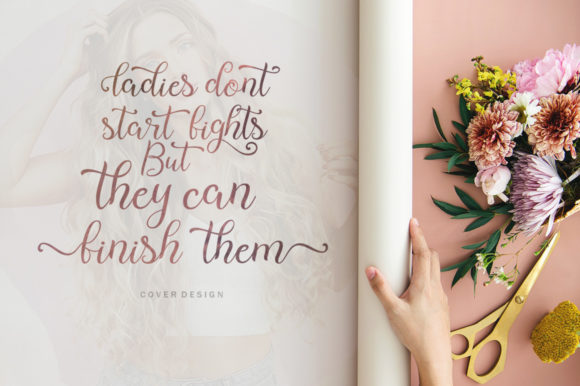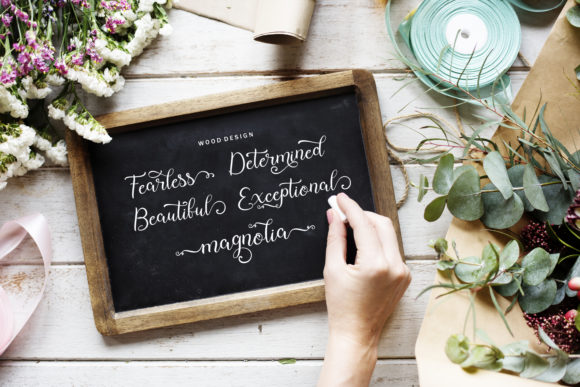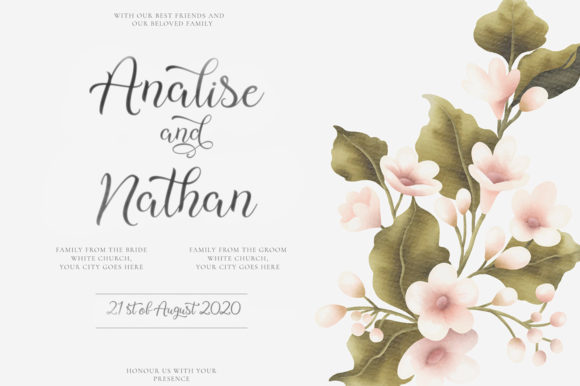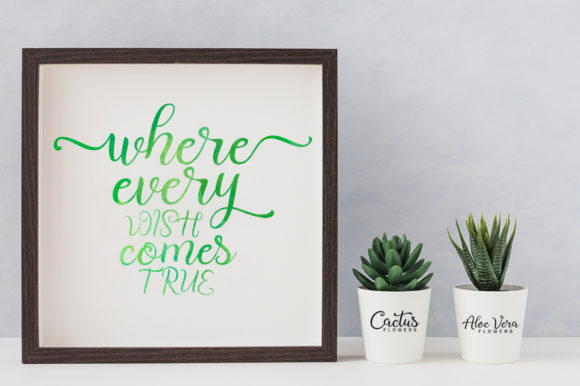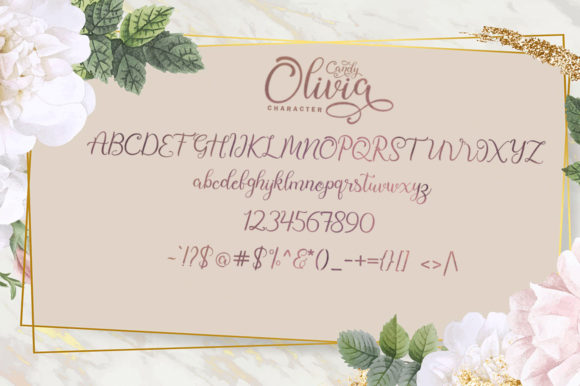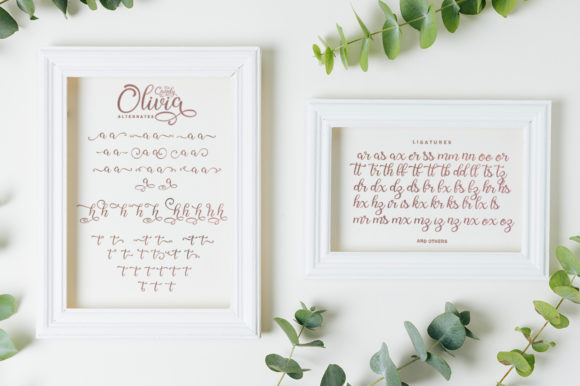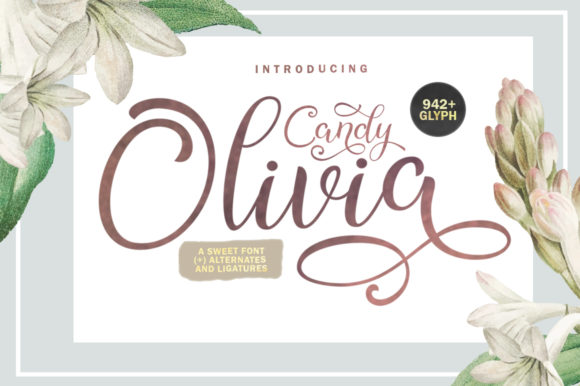
Candy Olivia Font: The Perfect Blend of Fun and Quirky for Your Designs
Are you on the hunt for a font that can add a dash of fun and personality to your designs? Look no further than the Candy Olivia Font. This casual, handwritten font is created using a brush pen, giving it a clean and quirky feel that’s perfect for a variety of projects. In this article, we’ll dive into the details of the Candy Olivia Font and explore how it can elevate your logos, branding, social media, and DIY projects.
What is Candy Olivia Font?
Candy Olivia Font is a unique, handwritten font that’s designed to bring a touch of whimsy to your designs. Created with a brush pen, this font boasts a clean and playful feel that’s sure to capture the attention of your audience. Whether you’re working on a logo, branding materials, social media graphics, or crafty DIY projects, Candy Olivia Font is the perfect fit.
Key Features of Candy Olivia Font
- Handwritten with a brush pen: The Candy Olivia Font is created using a brush pen, giving it a distinctive, hand-crafted feel.
- Clean and quirky: This font strikes the perfect balance between clean lines and quirky charm, making it versatile and engaging.
- Casual and fun: The Candy Olivia Font is designed to add a touch of fun and personality to your designs, making it perfect for projects that require a playful vibe.
- Perfect for various projects: From logos and branding to social media graphics and DIY projects, this font is suitable for a wide range of applications.
Uses for Candy Olivia Font
The Candy Olivia Font is incredibly versatile, making it suitable for a variety of projects. Here are some ideas to get you started:
- Logos and branding: Use the Candy Olivia Font to create a unique and memorable logo that reflects your brand’s personality.
- Social media graphics: Add a touch of fun and whimsy to your social media graphics, including Facebook posts, Instagram stories, and Twitter headers.
- DIY projects: The Candy Olivia Font is perfect for crafty DIY projects, such as handmade cards, gift tags, and scrapbooking.
- Stationery and paper goods: Use this font to create custom stationery, notebooks, and paper goods that are sure to stand out.
Tips for Using Candy Olivia Font
To get the most out of the Candy Olivia Font, here are some tips to keep in mind:
- Pair with complementary fonts: Combine the Candy Olivia Font with complementary fonts to create visual interest and hierarchy.
- Experiment with colors: Don’t be afraid to experiment with different colors and textures to add depth and personality to your designs.
- Keep it simple: While the Candy Olivia Font is playful and fun, it’s essential to keep your design simple and easy to read.
In conclusion, the Candy Olivia Font is a unique and versatile font that’s perfect for designers and crafters looking to add a touch of fun and personality to their projects. With its clean and quirky feel, this font is suitable for a wide range of applications, from logos and branding to social media graphics and DIY projects. By following the tips outlined in this article, you can get the most out of the Candy Olivia Font and create designs that are sure to capture the attention of your audience.